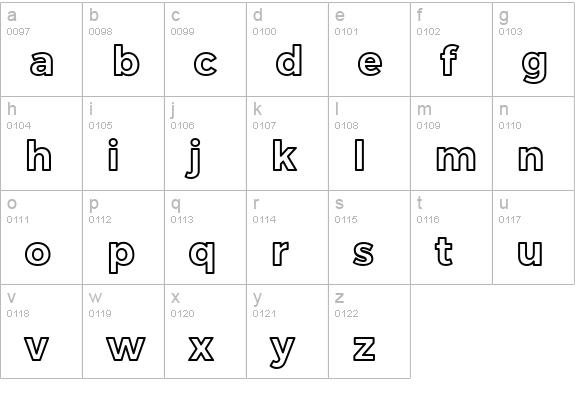
Trueno Bold Outline is a strong, high-contrast variant in the Trueno typeface family \xE2\x80\x94 well suited to headlines, attention-grabbing titles, and strong calls-to-action.
Introducing Trueno Bold Outline, a captivating font that effortlessly combines modernity and sophistication. This font is bold, dynamic, and perfect for making a statement in any design project. With its unique outline style, Trueno Bold Outline adds a touch of edginess and creativity to any piece of artwork or typography. Trueno Bold Outline is the perfect choice for anyone seeking a font that stands out from the crowd. Whether you're designing a logo, creating a poster, or crafting a social media graphic, this font will grab attention and leave a lasting impression. One of the best aspects of Trueno Bold Outline is that it is free! Yes, you read that correctly. This incredible font is freely available to download at FontsMarket.com. Now, you can enhance your designs with a high-quality font without breaking the bank. It's a win-win situation! Not only does Trueno Bold Outline offer a visually striking aesthetic, but it also boasts exceptional legibility. Each letter is meticulously crafted to ensure maximum readability, even at smaller sizes. This makes Trueno Bold Outline a versatile font that can be used in a wide range of design projects, from digital to print. With its clean lines, sharp angles, and bold presence, Trueno Bold Outline is a font that demands attention. It is suitable for both professional and personal use, allowing you to elevate your branding, advertising, or personal projects with ease. So, why settle for ordinary when you can have extraordinary? Download Trueno Bold Outline for free at FontsMarket.com and take your designs to the next level. Unleash your creativity and let this captivating font make a bold statement for you.